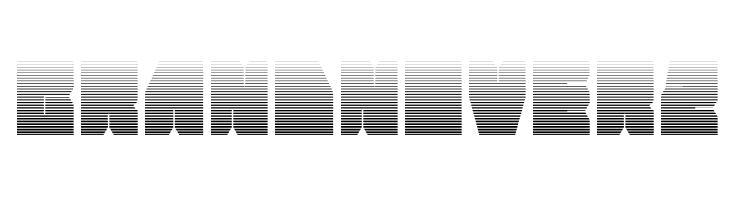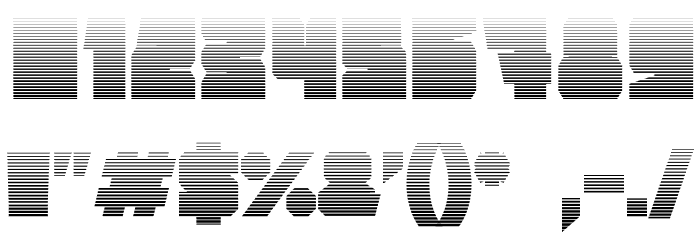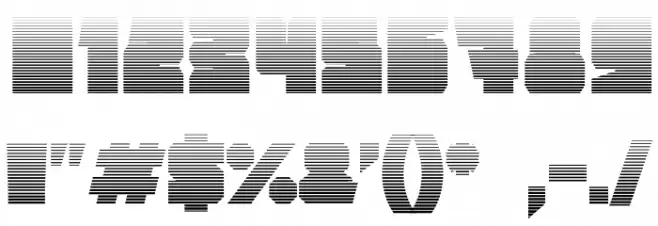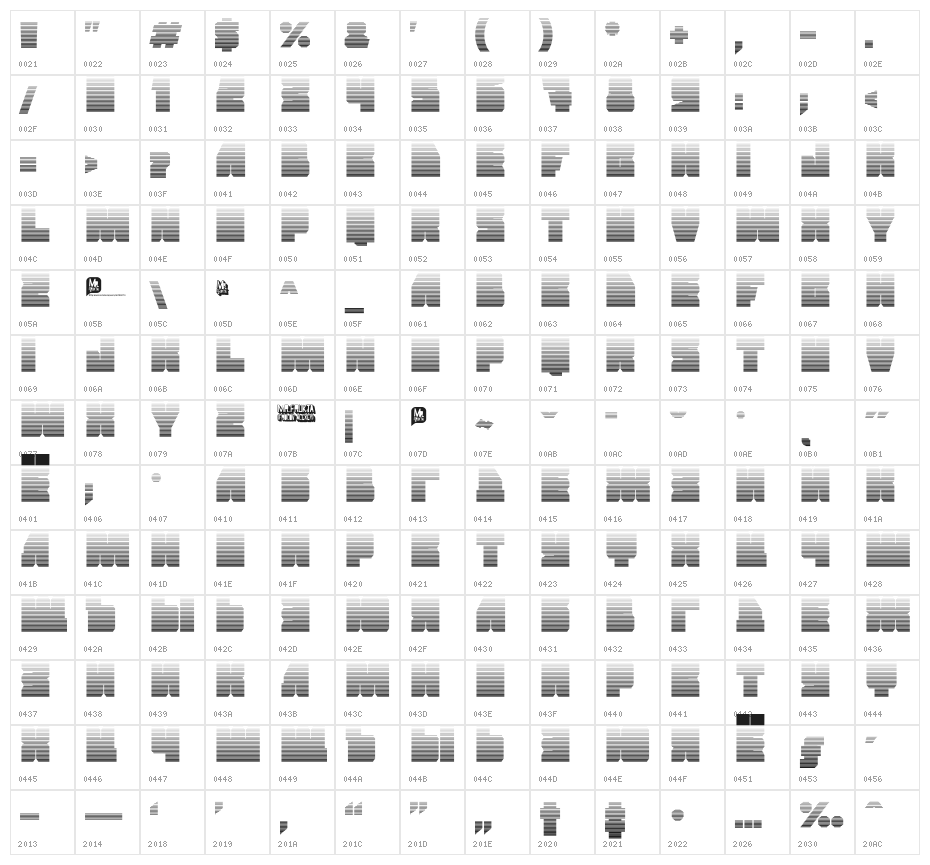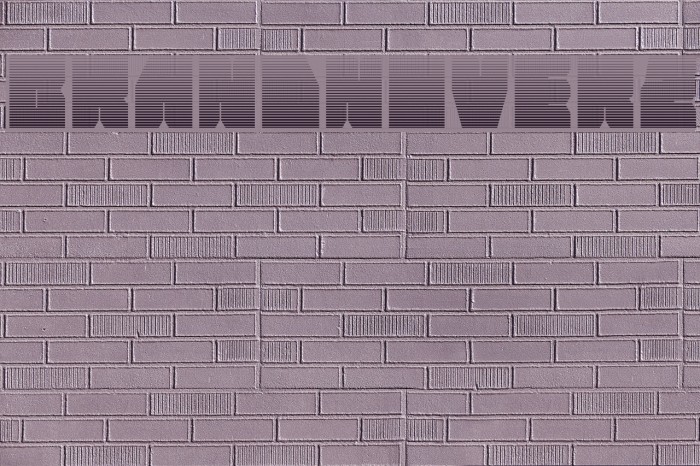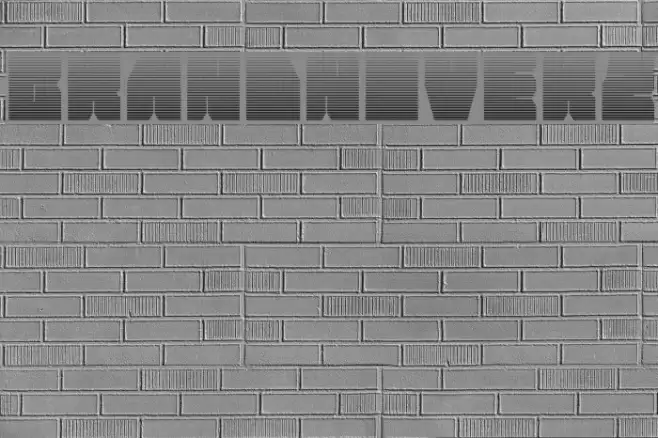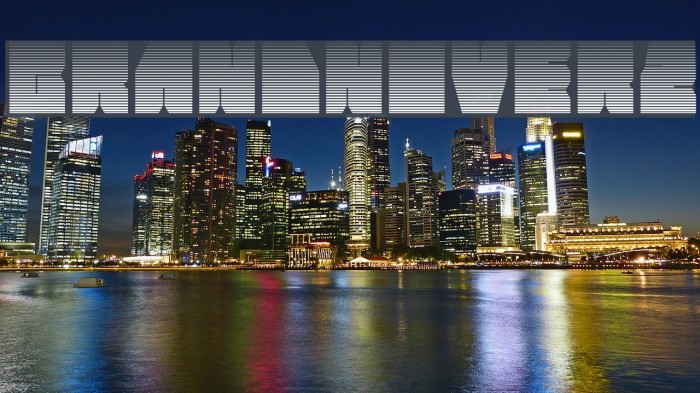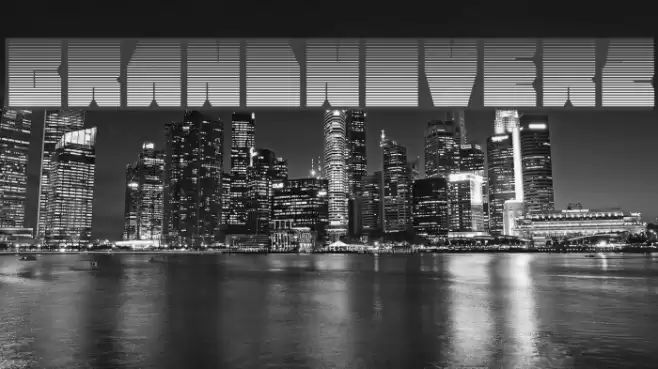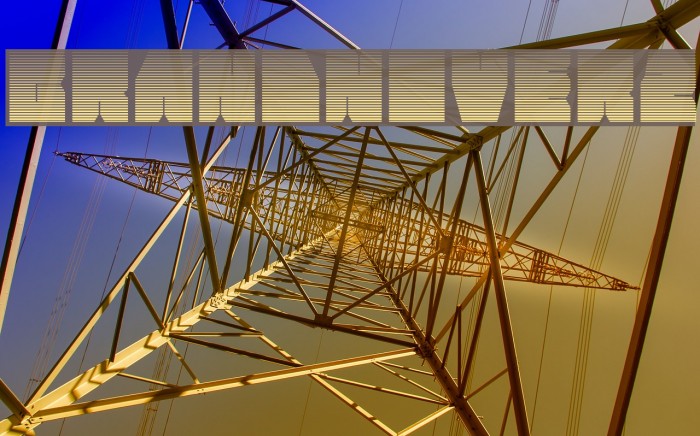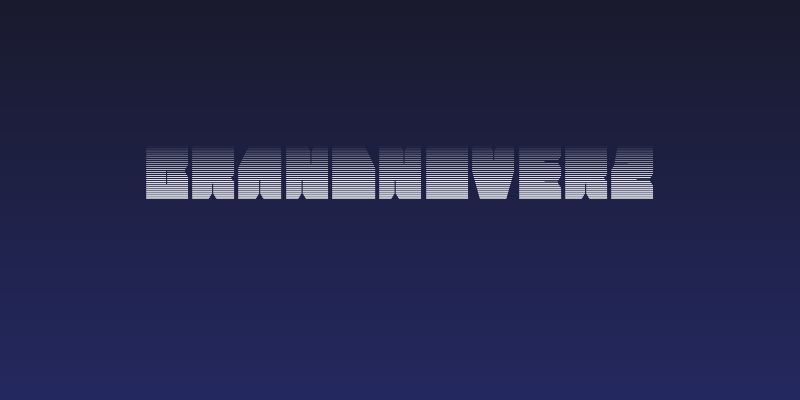
GrandNover2 Font
GrandNover2 Description
This font features a bold, geometric design with a unique horizontal line pattern that creates a sense of movement and depth. Each character is constructed with parallel lines, giving it a modern and futuristic appearance. The uppercase and lowercase letters maintain a consistent style, with sharp angles and a blocky structure. The numbers and special characters follow the same design principles, ensuring uniformity across the font. The line pattern not only adds visual interest but also enhances readability by creating a distinct contrast between the characters and the background.
| Proposed Projects | Ideal for futuristic branding, tech-related projects, posters, and digital media. |